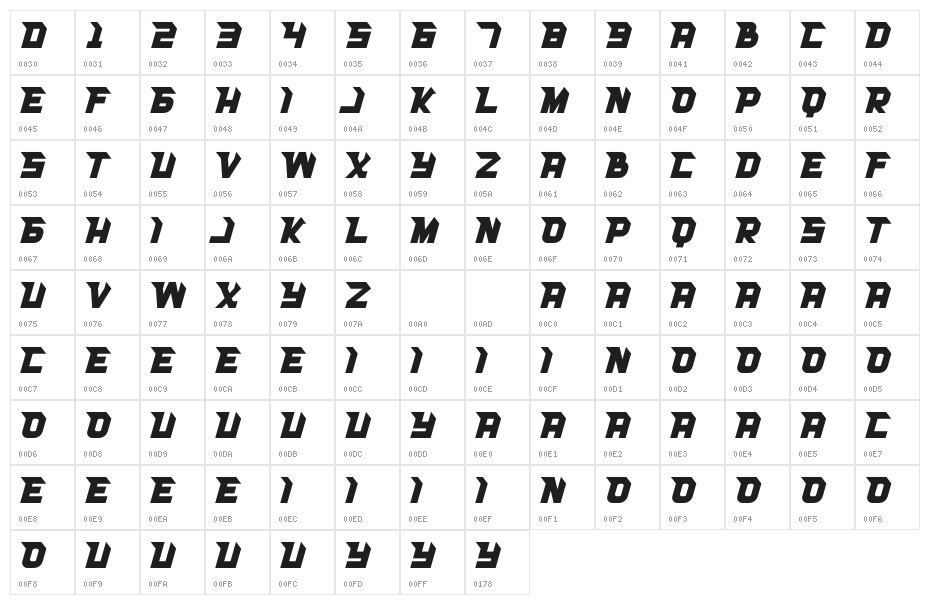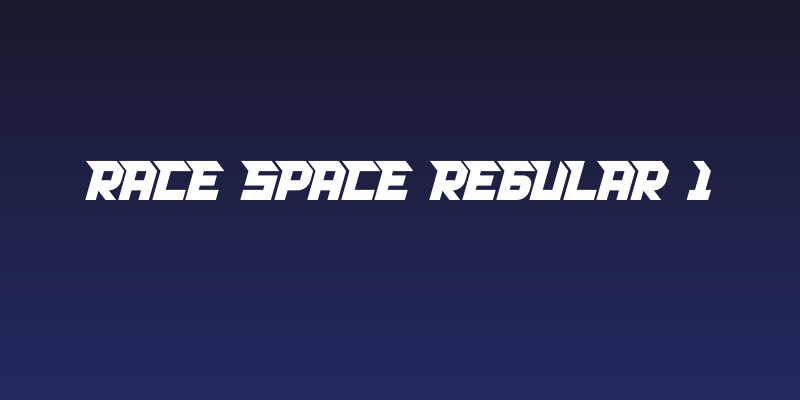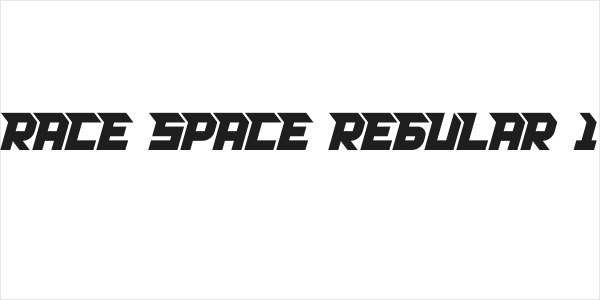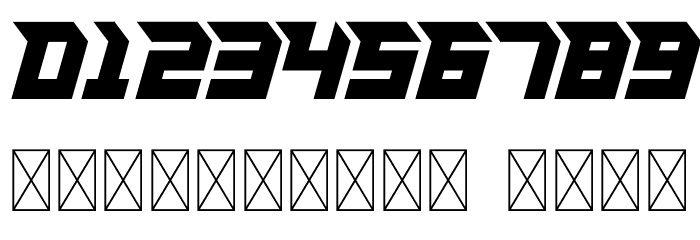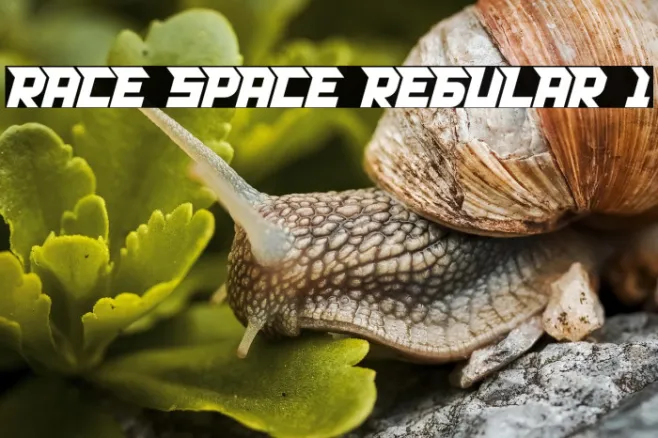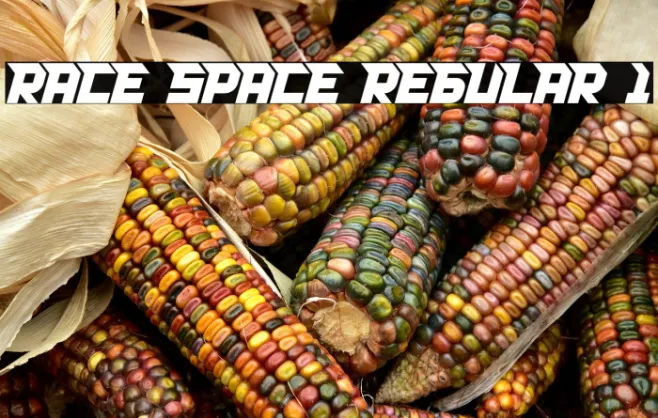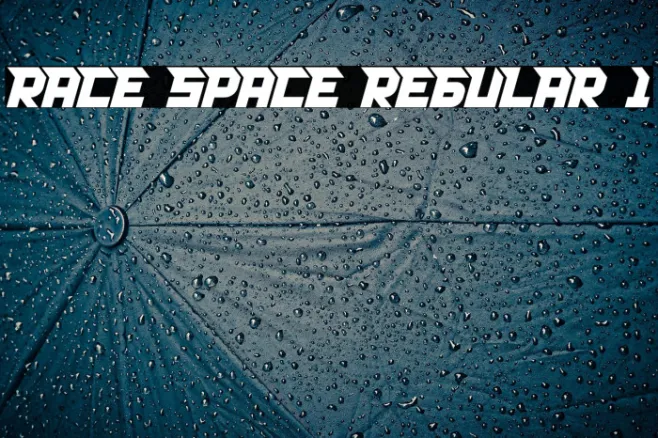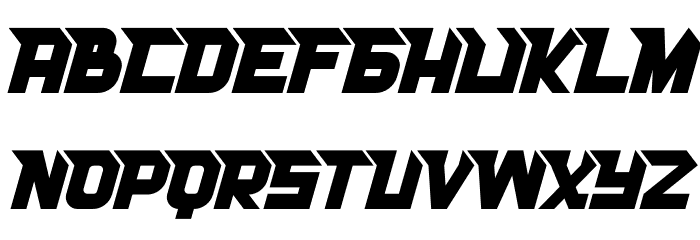
RACE SPACE REGULAR 1 Font
RACE SPACE REGULAR 1 Description
This font features a bold, angular design with a futuristic and dynamic appearance. The characters are sharply cut with a distinct slant, giving a sense of motion and speed. The uppercase and lowercase letters maintain a consistent style, with geometric shapes and strong lines. The numbers follow the same design principles, ensuring uniformity across all characters. The special characters are also designed to match the overall aesthetic, making this font suitable for projects that require a modern and edgy look.